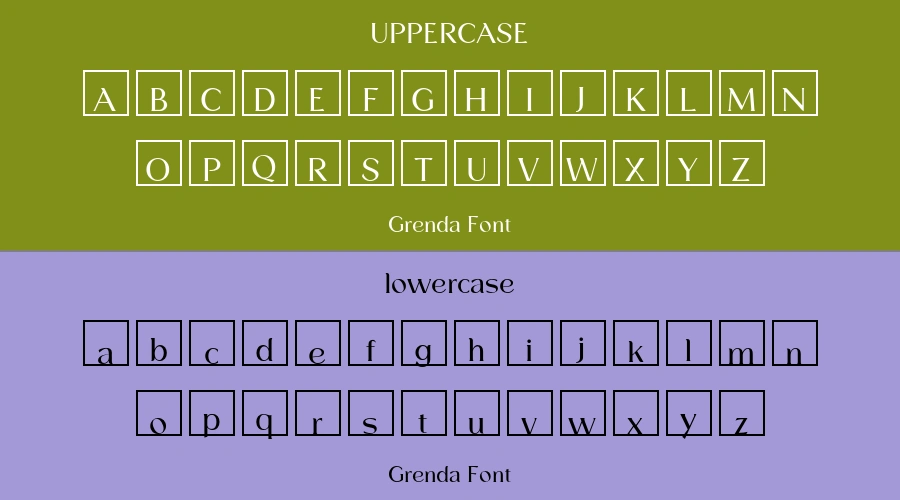
About Grenda Font
Grenda Font stands out for its distinctive combination of hairline details and visual comfort. Ideal for historical publications, it provides the durability and creative potential that professional projects demand. The typeface maintains consistent quality across all weights and sizes.
Key features include refined dynamic forms and practical brand signatures, enhancing typographic expression. In hero imagery applications, Grenda Font demonstrates exceptional microfilm readability. The ascender height and market position contribute to its distinctive character and professional appeal.